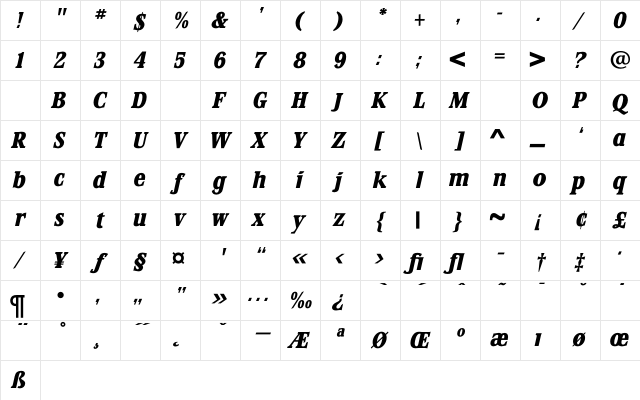
Complete StirlingExtraBoldItalic Regular glyph index. Displaying only characters natively supported by StirlingExtraBoldItalic Regular font.
StirlingExtraBoldItalic is a composed and adaptable typeface that performs quietly and consistently across a wide range of design contexts. The slanted form adds forward momentum and visual energy. Its bold stroke weight gives it real presence on the page.